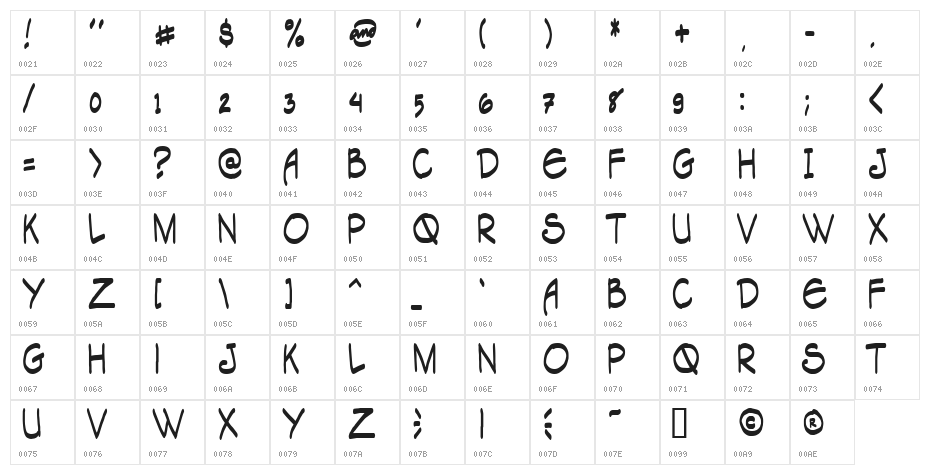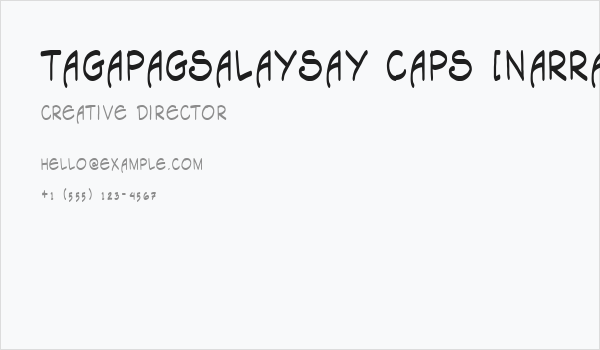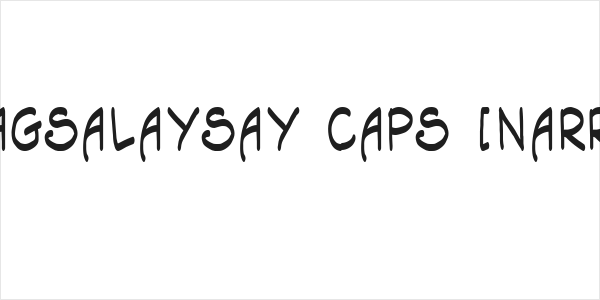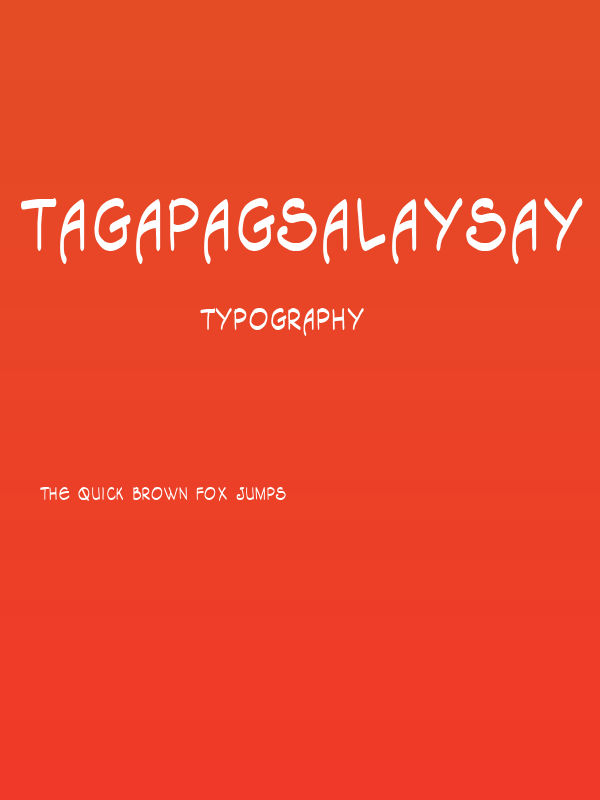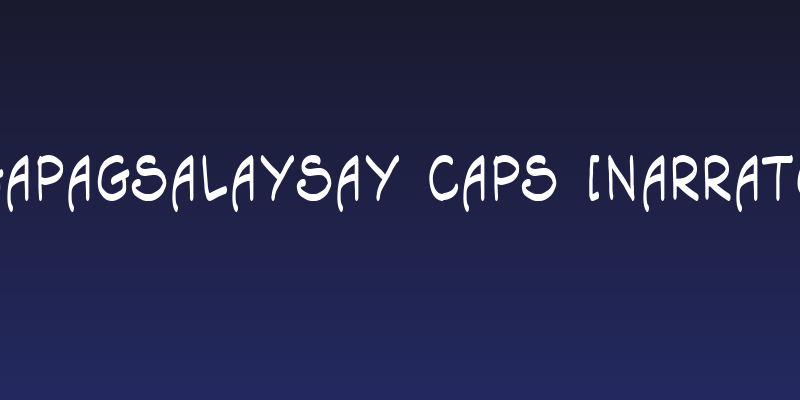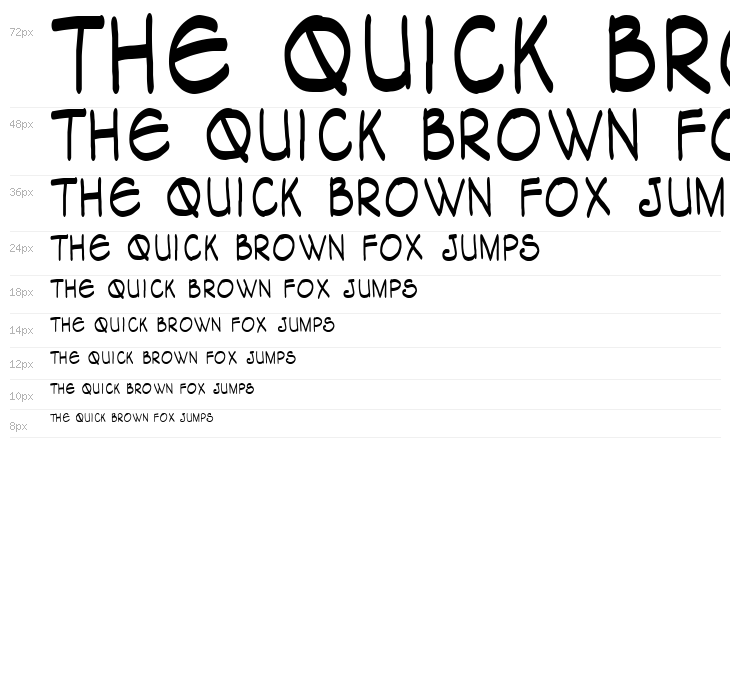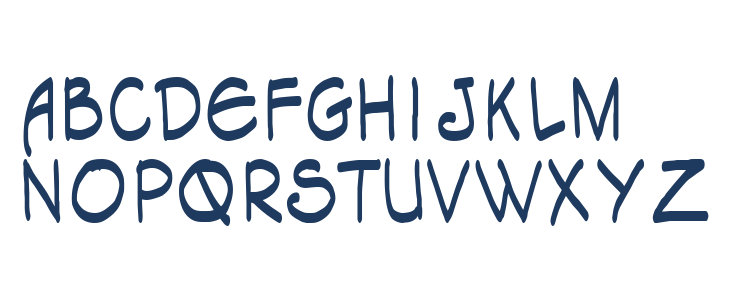
Tagapagsalaysay Caps [Narrator] Font
Tagapagsalaysay Caps [Narrator] Description
This font features a playful and informal style, characterized by its hand-drawn appearance. The letters have a whimsical, slightly irregular shape, giving them a unique charm. The strokes are bold and rounded, with a consistent thickness throughout, creating a cohesive look. The uppercase and lowercase letters maintain a similar style, with the lowercase being slightly smaller and more compact. Numbers and special characters follow the same playful design, making the font versatile for various uses. The overall aesthetic is casual and friendly, suitable for projects that require a personal touch.
| Proposed Projects | Ideal for children's books, greeting cards, playful branding, and informal invitations. |